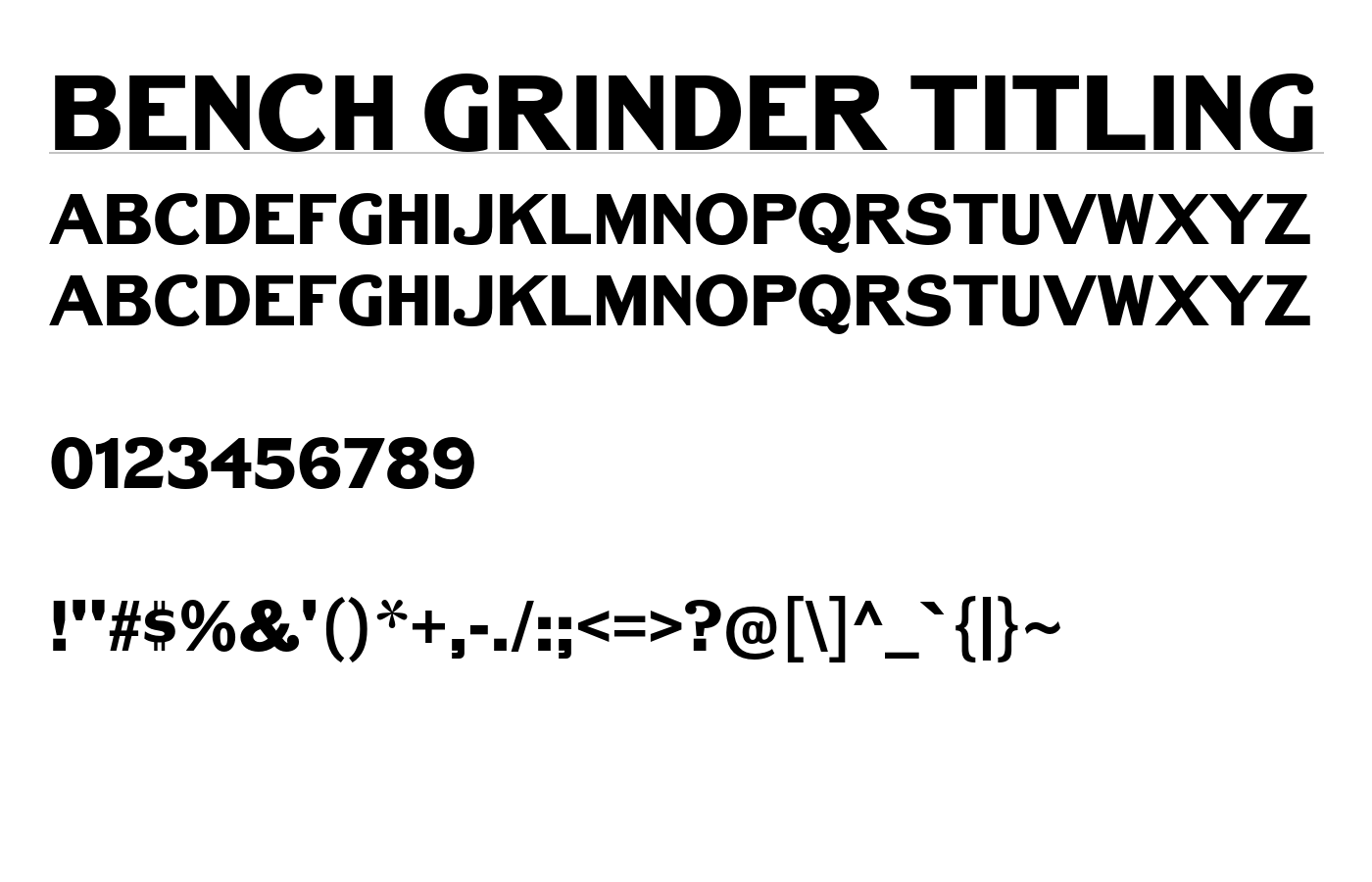
Bench Grinder Titling is a bold, sans serif font with strong geometric shapes and a confident, industrial feel. Its clean, condensed letterforms and uniform stroke weight make it ideal for impactful headlines and branding that demand attention. This font works well for modern, assertive designs such as logos, posters, and packaging where clarity and boldness are key.
Bench Grinder Titling Font
About Bench Grinder Titling Font
| Font family | Bench Grinder Titling Font |
| Designer | Ray Larabie |